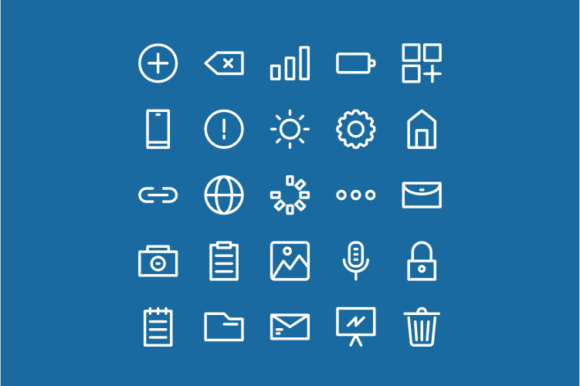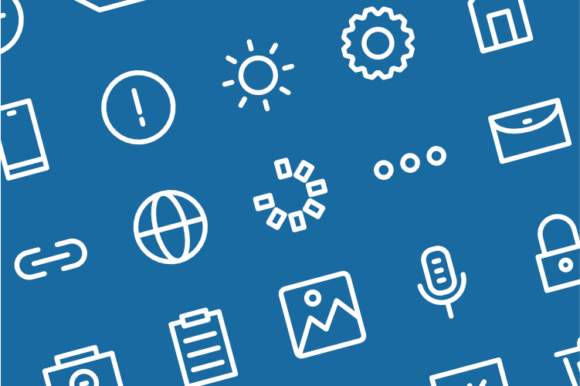
User Interface Font
Absolutely! “User Interface” is a cool and useful dingbats font that can enhance any creation related to high tech, web, or the internet. With its unique and visually appealing icons, this font is a valuable asset to your fonts’ library.
The “User Interface” dingbats font is specifically designed to provide a range of icons and symbols that are commonly used in user interfaces, web design, and digital projects. It features a collection of carefully crafted icons representing various elements such as buttons, arrows, navigation symbols, devices, and more.
By using the “User Interface” font, you can easily incorporate these icons into your designs and create a cohesive and professional look. Whether you’re designing a website, a mobile app, a software interface, or any other digital project, this font can be a go-to resource for adding visual elements that are relevant to the tech industry.
One of the key advantages of using “User Interface” is its versatility. The font provides a wide range of icons that can be used in different contexts and applications. Whether you need symbols to represent actions, options, or features, this font offers a diverse selection that can cater to various design requirements.
The clean and modern design of the icons in “User Interface” ensures that they integrate seamlessly into your projects. The consistency of the style and the attention to detail in each icon contribute to the overall professionalism and usability of your design.
In addition to digital projects, the “User Interface” font can also be used in print materials, such as brochures, posters, or presentations, to add a touch of technology and modernity. The icons can be used to visually enhance information, highlight key points, or create visual interest.
To utilize the “User Interface” font effectively, consider pairing it with complementary typography and design elements. This font works well with clean and modern sans-serif typefaces, creating a harmonious visual balance.
Whether you’re a web designer, app developer, or simply someone looking to add a tech-inspired touch to your projects, the “User Interface” dingbats font is a valuable addition to your font library. It provides a wide range of icons that can elevate your creations and add a professional touch to any design related to high tech, web, or the internet.
So go ahead and explore the possibilities with the “User Interface” font and let your creativity thrive in the digital realm!